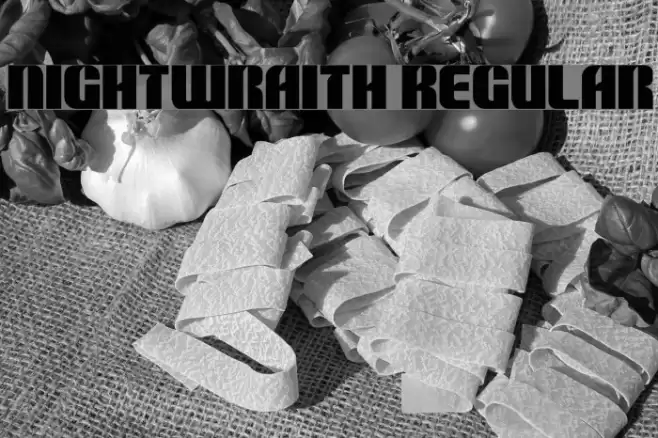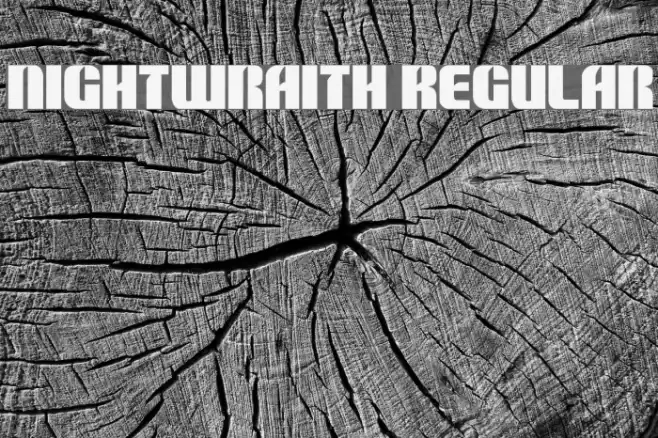
Nightwraith Regular Font
Nightwraith Regular Description
This font features a bold and striking design with a strong geometric influence. The characters are constructed with thick, block-like shapes that convey a sense of power and stability. The uppercase and lowercase letters maintain a consistent weight, creating a uniform appearance across the typeface. The numbers and special characters are equally robust, ensuring readability and impact. The font's style is reminiscent of industrial and futuristic themes, making it suitable for projects that require a bold statement. Its unique character shapes and solid structure make it stand out in any design.
A bold, geometric font with a strong, industrial feel from Uncategorized fonts.
- Proposed Projects: Ideal for branding, posters, headlines, and any design needing a bold, impactful typeface.